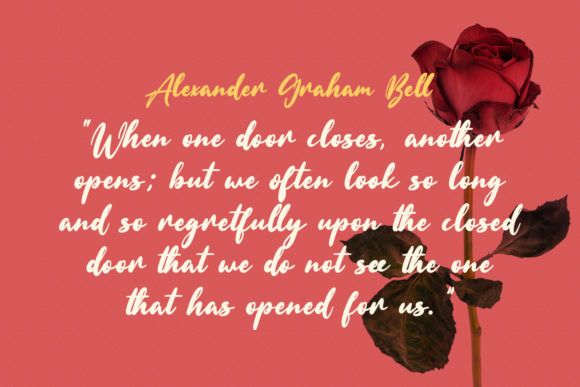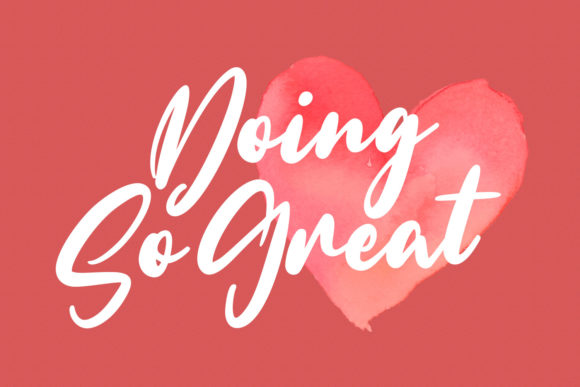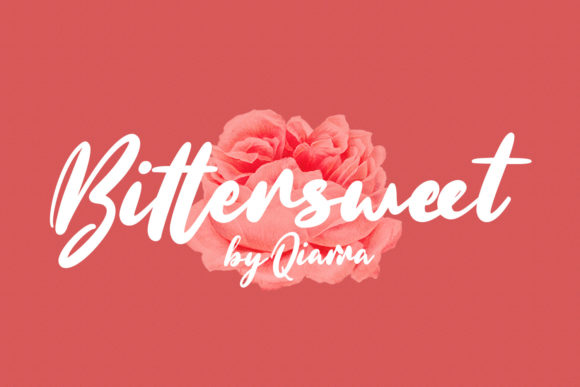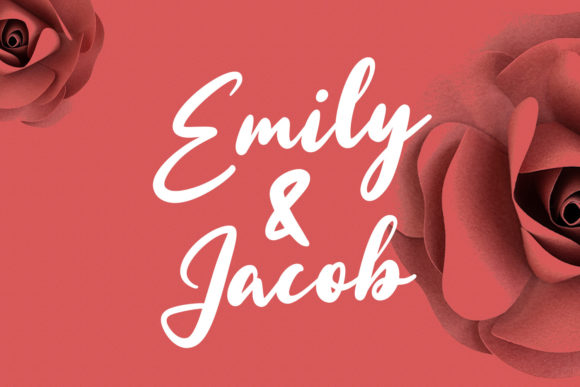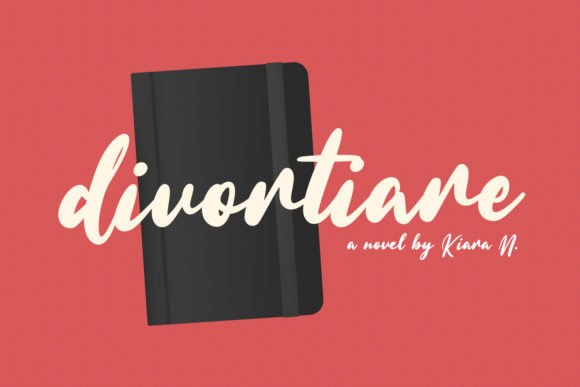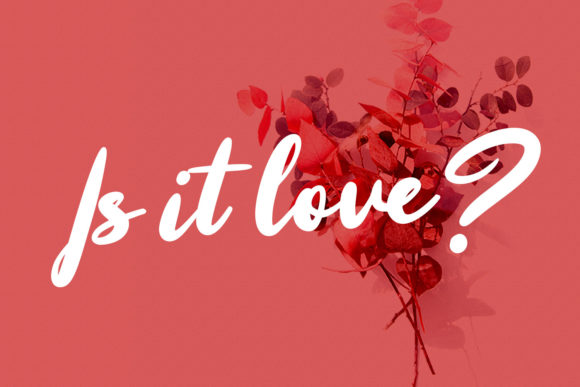
Bitters Script Font: Elevate Your Designs with Elegance and Sophistication
In the world of typography, a well-chosen font can make all the difference in elevating your design from ordinary to extraordinary. For designers and crafters seeking a font that exudes class, elegance, and modernity, Bitters Script Font is an exceptional choice. This beautiful and refined script font is perfect for a wide range of applications, including logos, branding, invitations, stationery, wedding designs, social media posts, and much more.
The Characteristics of Bitters Script Font
Bitters Script Font boasts a distinctive, flowing script style that is both sophisticated and eye-catching. Its elegant and modern look makes it an ideal choice for designers who want to add a touch of luxury to their work. The font’s refined lines, precise letterforms, and beautiful swashes create a sense of movement and fluidity, making it perfect for designs that require a high level of sophistication.
What Makes Bitters Script Font So Versatile?
One of the key advantages of Bitters Script Font is its versatility. Its elegant and modern design makes it suitable for a wide range of applications, from formal events to digital media. Here are some of the ways you can use Bitters Script Font:
- Invitations and Stationery: Add a touch of elegance to your wedding invitations, party invites, and stationery with Bitters Script Font.
- Wedding Designs: Make your wedding designs truly unforgettable with this beautiful script font.
- Social Media Posts: Elevate your social media presence with eye-catching posts that showcase your brand’s style and personality.
Why Choose Bitters Script Font?
With so many fonts available, why choose Bitters Script Font? Here are just a few reasons why designers and crafters love this beautiful script font:
- Elegant and Modern Design: Bitters Script Font boasts a sophisticated and modern look that is sure to impress.
- Highly Versatile: Use Bitters Script Font for a wide range of applications, from logos and branding to social media posts and wedding designs.
- Easy to Read: Despite its elegant and cursive nature, Bitters Script Font is highly legible, making it perfect for both digital and print applications.
- Unique and Memorable: Stand out from the crowd with a font that is both unique and memorable.
Tips for Using Bitters Script Font
To get the most out of Bitters Script Font, here are a few tips to keep in mind:
- Use it Sparingly: While Bitters Script Font is beautiful, it’s best used sparingly to avoid overwhelming your design.
- Pair it with a Sans-Serif Font: For optimal contrast, pair Bitters Script Font with a clean sans-serif font.
- Experiment with Swashes: Bitters Script Font comes with beautiful swashes that can add an extra touch of elegance to your design.
In conclusion, Bitters Script Font is a beautiful and refined script font that is perfect for designers and crafters seeking to add a touch of elegance and sophistication to their work. With its elegant and modern design, versatility, and ease of use, Bitters Script Font is an exceptional choice for a wide range of applications. Whether you’re creating logos, branding, invitations, stationery, wedding designs, or social media posts, Bitters Script Font is sure to elevate your designs to the next level.